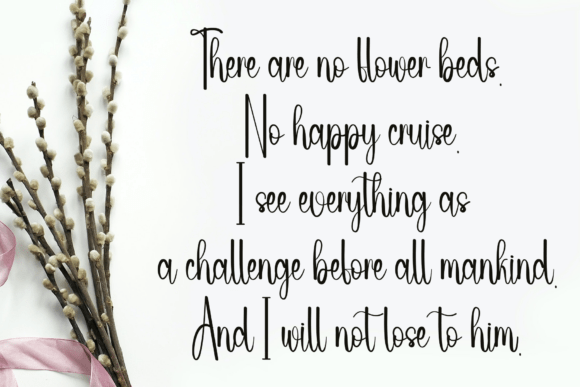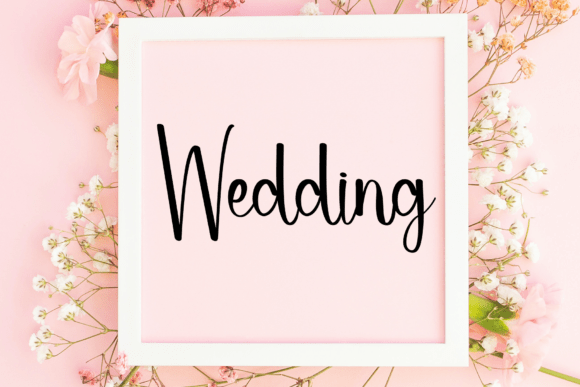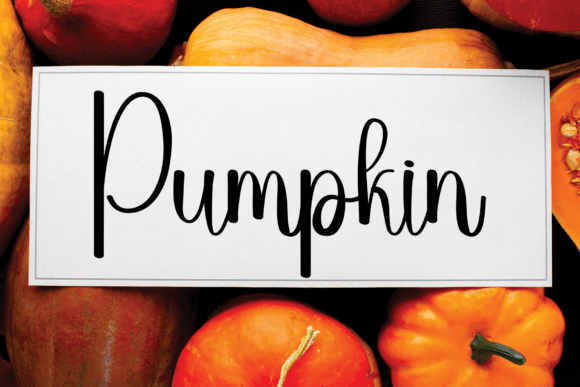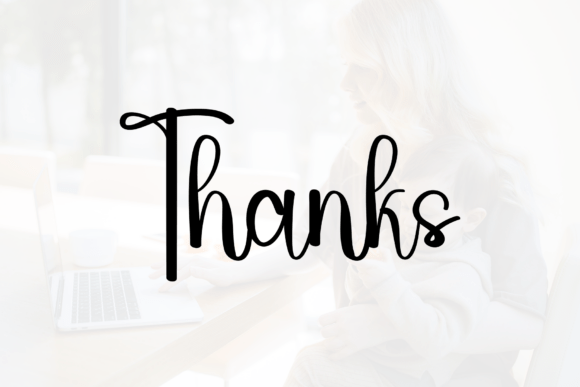
Love at First Sight: Discovering the February Valentine Font
You know that feeling when you stumble upon the perfect font for your design project? It’s like the stars aligning and everything falls into place. That’s exactly what happened when I discovered the February Valentine Font. Its sweet and beautiful handwritten style has been a game-changer for my design work, and I’m excited to share it with you.
The February Valentine Font is a delightful addition to any design project, featuring characters that dance along the baseline. Its cozy accent adds a touch of warmth and personality to your work, making it perfect for Valentine’s Day-themed projects, wedding invitations, or any other design that requires a romantic touch.
As a designer, you know how valuable a great font can be. The February Valentine Font is no exception, offering a unique and charming look that’s sure to impress. Whether you’re working on a personal or professional project, this font is sure to become a favorite in your design arsenal.
February Valentine Font Key Features
- Font Family: February Valentine, a unique and elegant script font designed for romantic and Valentine’s Day-themed projects.
- Unique Characteristics: February Valentine Font features a beautiful, handwritten style with swashes, flourishes, and elegant connections between letters, making it perfect for creating romantic and personalized designs.
February Valentine Font Review
The February Valentine Font is a sweet and charming addition to any typography collection. ✨ I love the whimsical feel it brings to text, making it perfect for Valentine’s Day or any other romantic occasion. The font is highly legible, with clear and defined letterforms that make it easy to read.
Here are some of the things I like about this font: ✨
- Cute and playful design
- Perfect for romantic or whimsical projects
- Highly legible and clear letterforms
- Available in a range of weights and styles
- The font may be too cutesy for some projects or audiences
- The bold weight can be a bit too thick for some users’ taste
- Limited language support (only Western languages)
Overall, I think the February Valentine Font is a delightful addition to any designer’s toolkit. While it may not be suitable for every project, it’s perfect for those looking to add a touch of whimsy and romance to their designs.
The February Valentine Font is ideal for creating romantic and whimsical designs for Valentine’s Day, weddings, and other love-themed events.
Use it for invitations, greeting cards, social media graphics, and other visual elements that require a touch of elegance and sophistication.
To get the most out of the February Valentine Font, try combining it with other elegant fonts, pastel colors, and whimsical illustrations to create a unique and eye-catching design.